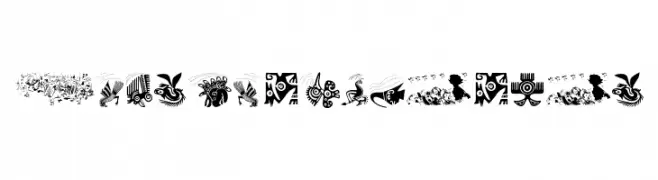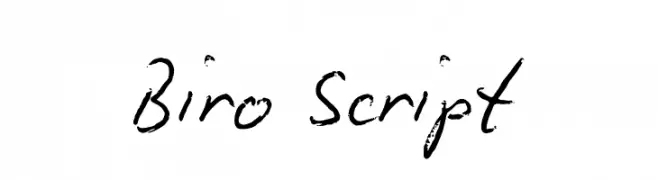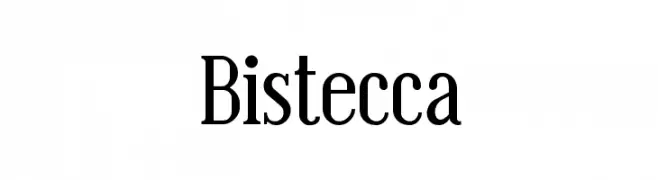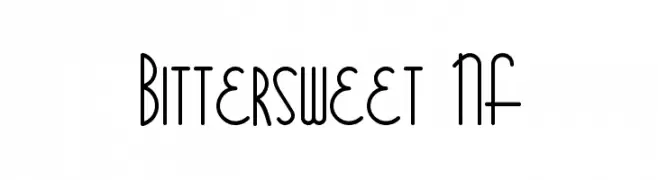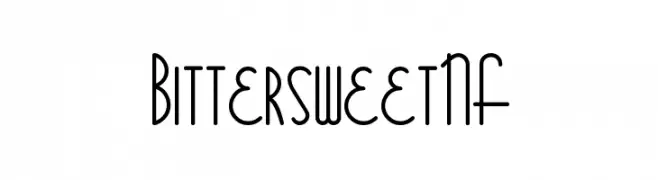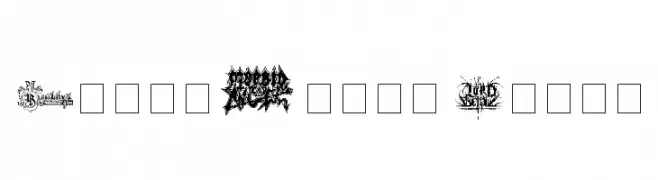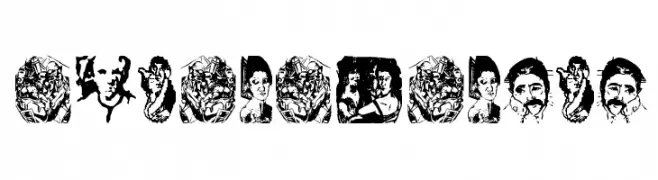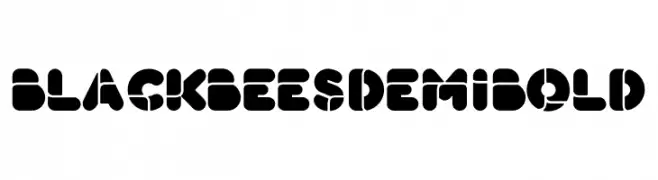
• BirdsInfluenced
A decorative font inspired by intricate bird motifs with artistic and detailed designs.
• BirdsNPlants
Ornate dingbat font with plant and bird motifs.
• Biro Script
• Bistecca
A modern serif font with tall, narrow letterforms and high contrast strokes.
• Bittersweet NF
A tall, narrow font with rounded edges, blending modern and vintage styles.
• BittersweetNF
A modern vintage font with tall, narrow letterforms and rounded edges.
• Black Metal Logos
• BlackBeckMan
An illustrative, scene-based decorative font with high visual complexity.
• BlackBees
A bold, geometric font with a modern, segmented design.
• BlackBees DemiBold
A bold, geometric font with a modern, segmented design.